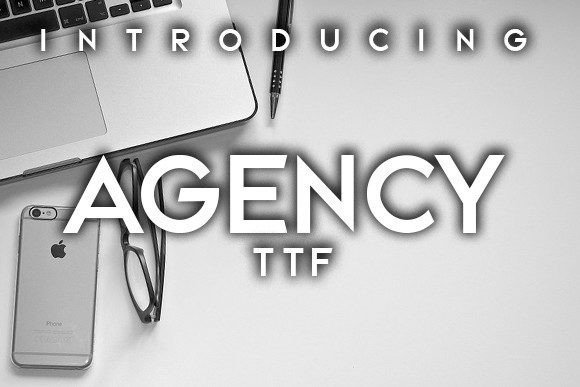
The Perfect Font for Your Next Design Project
Have you ever been stuck on a design project, staring at a blank page, and suddenly a burst of creativity hits you? You envision a bold, eye-catching font that perfectly captures the essence of your message. This is exactly what the Agency Font can do for you.
Agency is a stylish sans-serif typeface designed to make a statement on any design. Whether you’re creating posters, flyers, or even t-shirts, this font is sure to turn heads. As a designer, you’re constantly on the lookout for the perfect font to elevate your work. The Agency Font is a valuable addition to your toolkit, offering a sleek and modern look that’s guaranteed to impress.
Agency Font Key Features
- Unique Characteristics: Agency Font features a modern and sleek design, with clean lines and geometric shapes. It is particularly well-suited for use in corporate branding, advertising, and editorial design.
- Character Set: Agency Font includes a comprehensive character set, including uppercase and lowercase letters, numerals, punctuation marks, and special characters.
Agency Font Review
Overall, I’m impressed with the Agency Font, but it’s not without its quirks. ✨ Here are some things that work well:
- Fresh and modern design: Agency Font brings a sleek, contemporary feel to any project.
- Highly legible: The font is designed to be clear and readable, even at smaller sizes.
- Robust character set: Agency Font includes a wide range of languages and special characters.
However, I’ve encountered some limitations that might impact your workflow:
- Heavy: Agency Font is a relatively heavy font, which might be a concern for certain design applications.
- Not ideal for body text: While it’s great for headlines and titles, Agency Font can be overwhelming for large blocks of body text.
- Some characters feel inconsistent: There are a few characters that don’t quite match the rest of the font’s aesthetic.
Overall, I think Agency Font is a great choice for projects that need a bold, modern feel. Just be mindful of its limitations and use it judiciously.
Agency Font Practical Application Guide
For the most out of Agency Font, use it for:
- Modern branding and logos
- Corporate identity design
- Business card design
Remember to adjust font size, color, and style to achieve a balanced design.
Alternatives to Agency Font for Designers
Montserrat is a modern sans-serif font designed for digital use. It’s clean, versatile, and highly legible. Montserrat is ideal for body text, headings, and titles. Compared to Agency Font, Montserrat has a more geometric and urban feel.
Inter is a sans-serif font designed for digital use. It’s highly legible, clean, and versatile. Inter is suitable for a wide range of applications, from body text to headings and titles. Compared to Agency Font, Inter has a more modern and neutral feel.
Open Sans is a modern sans-serif font designed for digital use. It’s highly legible, clean, and versatile. Open Sans is ideal for body text, headings, and titles. Compared to Agency Font, Open Sans has a more friendly and approachable feel.